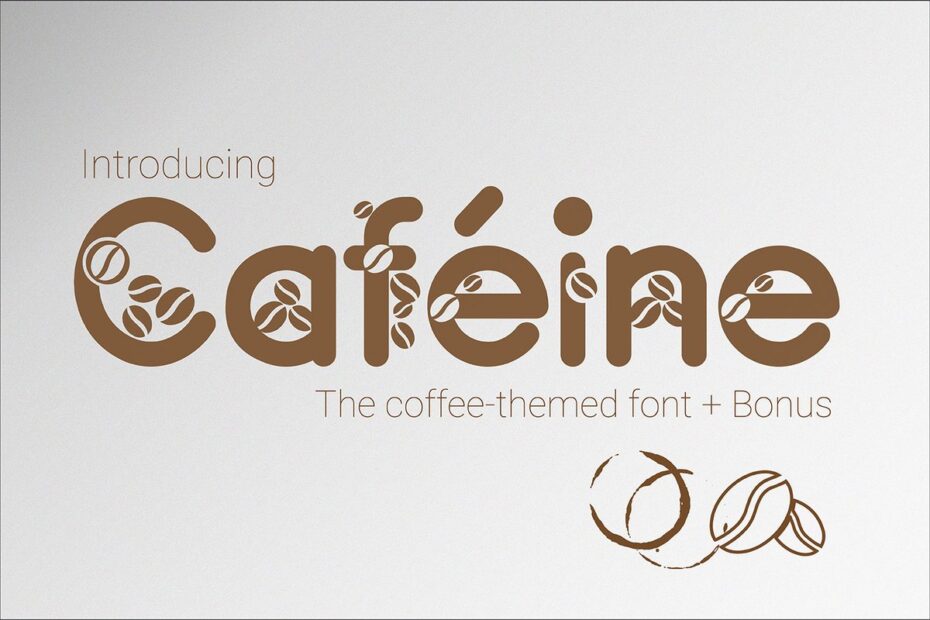
The Buzz on Caféine Font
Have you ever sipped on a rich, bold cup of coffee and felt a surge of creativity? That’s exactly what inspired the creation of Caféine Font, a beautiful, coffee-themed font that’s about to become your new favorite design tool.
Crafted with meticulous attention to detail, Caféine Font features the intricate textures of coffee beans, giving it a quirky and eye-catching charm. Designed specifically for the coffee business and community, this font is the perfect way to strengthen your brand’s theme and add a touch of whimsy to your marketing materials. Whether you’re a coffee shop owner, a barista, or a designer looking to add some personality to your projects, Caféine Font is a valuable asset that’s sure to perk up your designs.
Caféine Font Key Features
- Font Family: Caféine is a sans-serif font family designed for digital use.
- Size: The font family includes a range of weights from Thin (100) to Black (900), with 6 styles in total.
- Resolution: Optimized for use at high resolutions, making it suitable for both screen and print media.
- Unique Characteristics: Caféine features a clean, modern design with subtle rounded edges, making it highly legible and versatile for various applications.
- Language Support: Supports a wide range of languages, including Latin, Cyrillic, and Greek scripts, making it suitable for global use.
Caféine Font Review
Overall, I was pleasantly surprised by Caféine Font. Here are some of the things that stood out to me:
- ✨ Unique design: The font has a quirky, hand-drawn feel that’s perfect for adding a touch of personality to your designs.
- ✨ Versatile: Whether you’re working on a logo, brochure, or website, Caféine Font is a great choice.
- ✨ Easy to read: Despite its playful design, the font is surprisingly legible, making it a great choice for body text as well as headings.
- ⚠️ Limited language support: Unfortunately, Caféine Font doesn’t support many non-Latin scripts, which may limit its use in certain projects.
- ⚠️ Not ideal for small text: While Caféine Font is easy to read, it’s not the best choice for very small text sizes, where the characters may become difficult to distinguish.
Overall, I’d say Caféine Font is a great choice for designers who want to add a touch of whimsy to their projects. While it may not be the best choice for every project, it’s definitely worth considering for the right application.
Tips: Use Caféine Font to add a touch of modernity and sophistication to your designs. Experiment with different font sizes and colors to create visual interest.
Tips: Use Caféine Font to create bold and eye-catching headlines. Experiment with different font sizes and colors to create a visually appealing design.
Tips: Use Caféine Font to add a touch of professionalism to your presentations and documents. Experiment with different font sizes and colors to create visual interest.
Caféine Font is perfect for:
- Modern and sleek designs
- Business and professional presentations
- Editorial and publishing materials